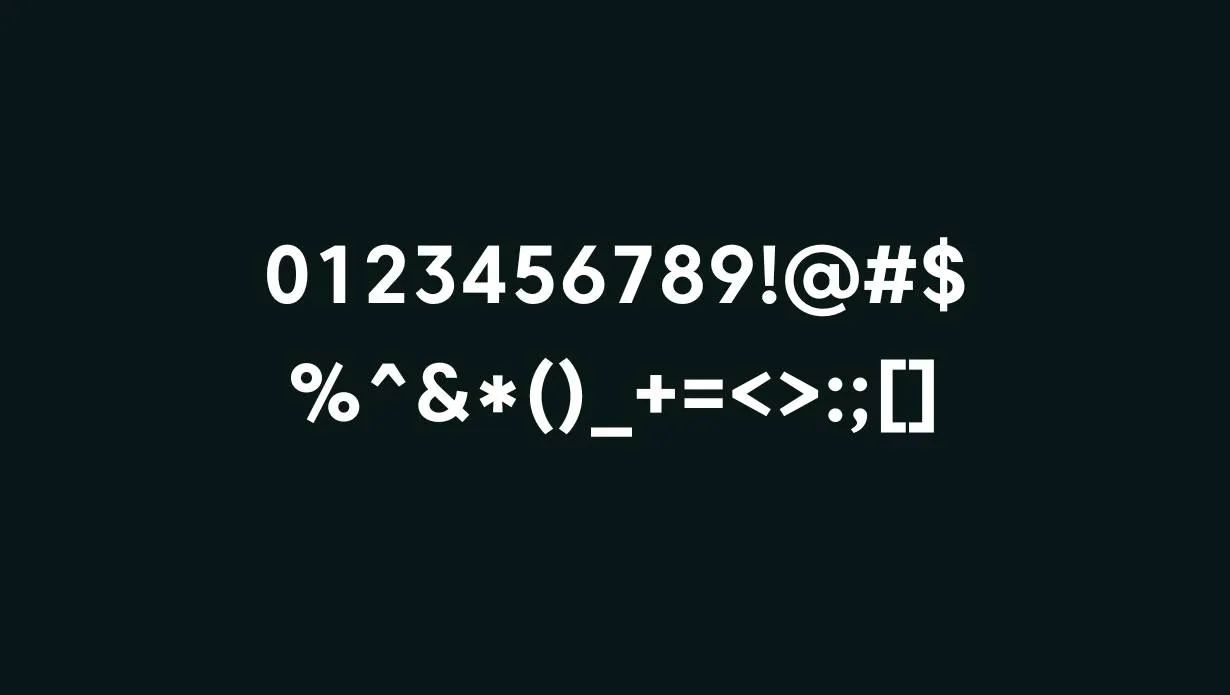
Caros Font has geomatic characters with neat and clean strokes. This typeface comes from the modern Sans-Serif font family. The characters of this have an elegant appearance with a high readability score. You can use it for both Short and Long text.
This typeface has a pairing feature with elianto font to give a boost to your project. This typeface supports different languages including Dutch, French, English, and Greek.
- Caros Black
- Caros Thin Italic
- Caros Heavy
- Caros Black Italic
- Caros Bold
- Caros Heavy Italic
- Caros Thin
- Caros Bold Italic
- Caros Medium Italic
- Caros ExtraBold
- Caros Medium
- Caros ExtraBold Italic
- Caros ExtraLight
- Caros Light Italic
- Caros Light
- Caros ExtraLight Italic
- Caros Italic